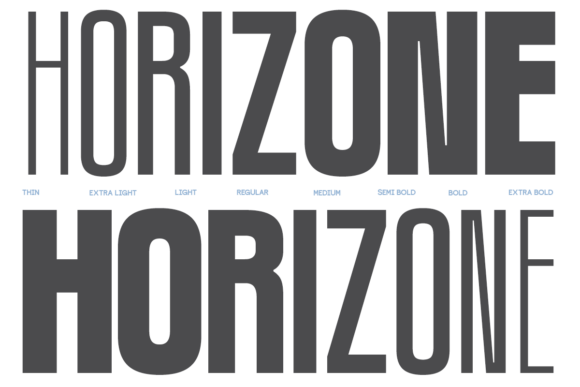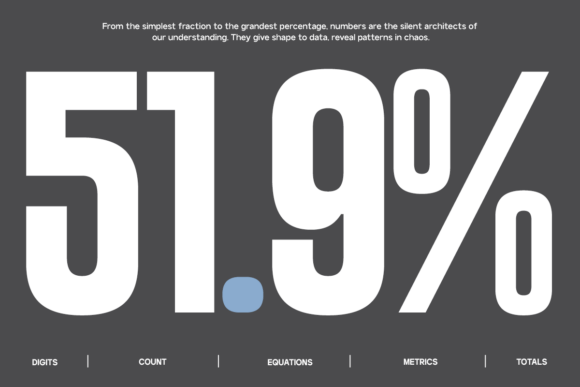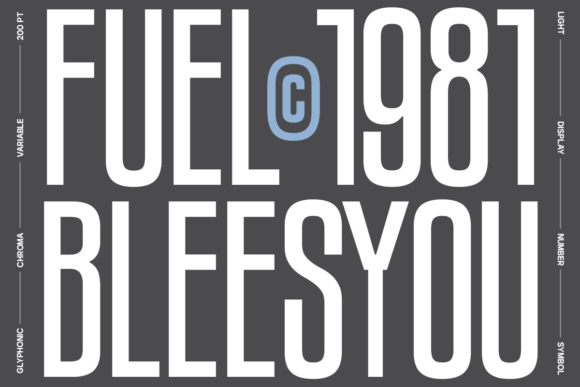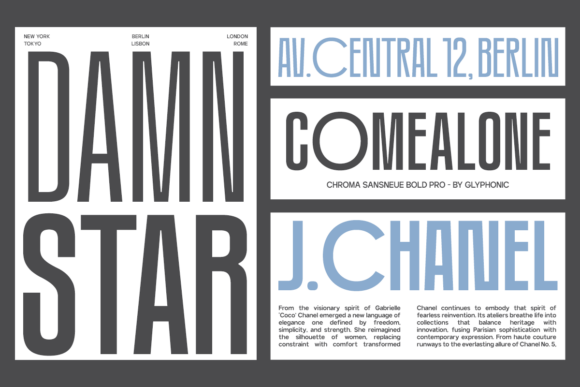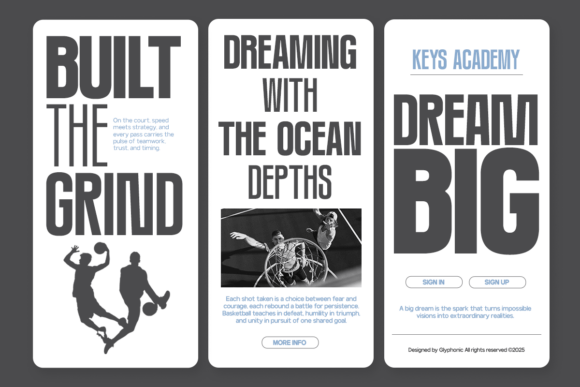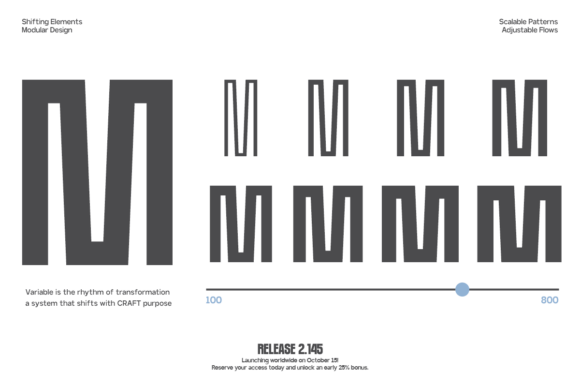
Unlocking the Power of Typography: Introducing the Chroma SansNeue Font
As designers, we’ve all been there – staring at a blank canvas, trying to convey a message that resonates with our audience. The perfect font can be the key to unlocking that emotional connection. For me, it’s the moment when the words start to flow, and the design begins to take shape. That’s where the Chroma SansNeue Font comes in – a modern, condensed typeface that embodies precision, strength, and versatility.
This refined typographic tool is designed to deliver bold visual impact while maintaining exceptional legibility across all mediums. Whether you’re working on editorial layouts, branding systems, posters, or digital interfaces, the Chroma SansNeue Font is the perfect choice for designers who prioritize both efficiency and aesthetics.
Chroma Sansneue Font Key Features
- Font Family: Chroma Sansneue, a sans-serif typeface designed for digital use.
- Font Size: Offers a range of font sizes, including 10, 12, 14, 16, 18, 20, 24, 36, 48, and 72 points.
- Resolution: Designed for high-resolution displays (Retina and above), with clear and crisp typography at 300 DPI and above.
- Unique Characteristics: Chroma Sansneue features a clean and modern design, with a focus on legibility and readability in digital environments.
- Language Support: Offers comprehensive language support, including Latin, Cyrillic, Greek, and many other scripts.
Designer Review: Chroma Sansneue Font
Overall, I’m impressed with the Chroma Sansneue font. It has a clean and modern aesthetic that can be used for a variety of projects. Here are some of its strengths: ✨
- Unique yet familiar design: Chroma Sansneue has a distinctive look that still feels approachable and easy to read.
- High level of legibility: The font is clear and easy to decipher, even at smaller font sizes.
- Support for multiple languages: Chroma Sansneue has a large character set, making it a great choice for global projects.
- Weight limitations: While Chroma Sansneue has a range of weights, it’s not as extensive as some other fonts.
- No italic or oblique styles: If you need these styles for a project, you may need to look elsewhere.
- Not ideal for display typography: Chroma Sansneue is best suited for body text and smaller headings.
Overall, I think Chroma Sansneue is a solid choice for designers who need a clean, modern font. While it may not be perfect for every project, it’s a great option for many applications.
For optimal results, use Chroma Sansneue for headings and body text to create a cohesive visual identity.
For best results, use Chroma Sansneue in conjunction with bold or italic weights to add visual interest to your designs.
For optimal results, use Chroma Sansneue in conjunction with a clear color scheme and typography hierarchy to create a visually appealing presentation or document.
Chroma Sansneue is ideal for:
- Corporate branding and identity
Remember to use Chroma Sansneue consistently throughout your designs to create a strong visual brand identity.
Alternatives to Chroma Sansneue Font
Inter is a highly legible and modern sans-serif font designed for digital use. It is suitable for a wide range of applications, including web design, mobile apps, and print materials.
Inter is more geometric and clean compared to Chroma Sansneue Font, making it a great choice for modern and minimalist designs. It has a more condensed x-height, which makes it suitable for smaller text sizes.
Avenir Next Font
Avenir Next is a sans-serif font designed for clarity and readability. It is a great choice for titles, headings, and body text in various applications, including digital and print.
Avenir Next is more elegant and refined compared to Chroma Sansneue Font, making it suitable for high-end and luxury brands. It has a more rounded and humanistic feel, which makes it easier to read in larger text sizes.
Montserrat is a sans-serif font inspired by urban typography. It is a great choice for digital and print applications, including web design, mobile apps, and signage.
Montserrat is more condensed and narrow compared to Chroma Sansneue Font, making it suitable for small screens and tight spaces. It has a more geometric feel, which makes it suitable for modern and edgy designs.